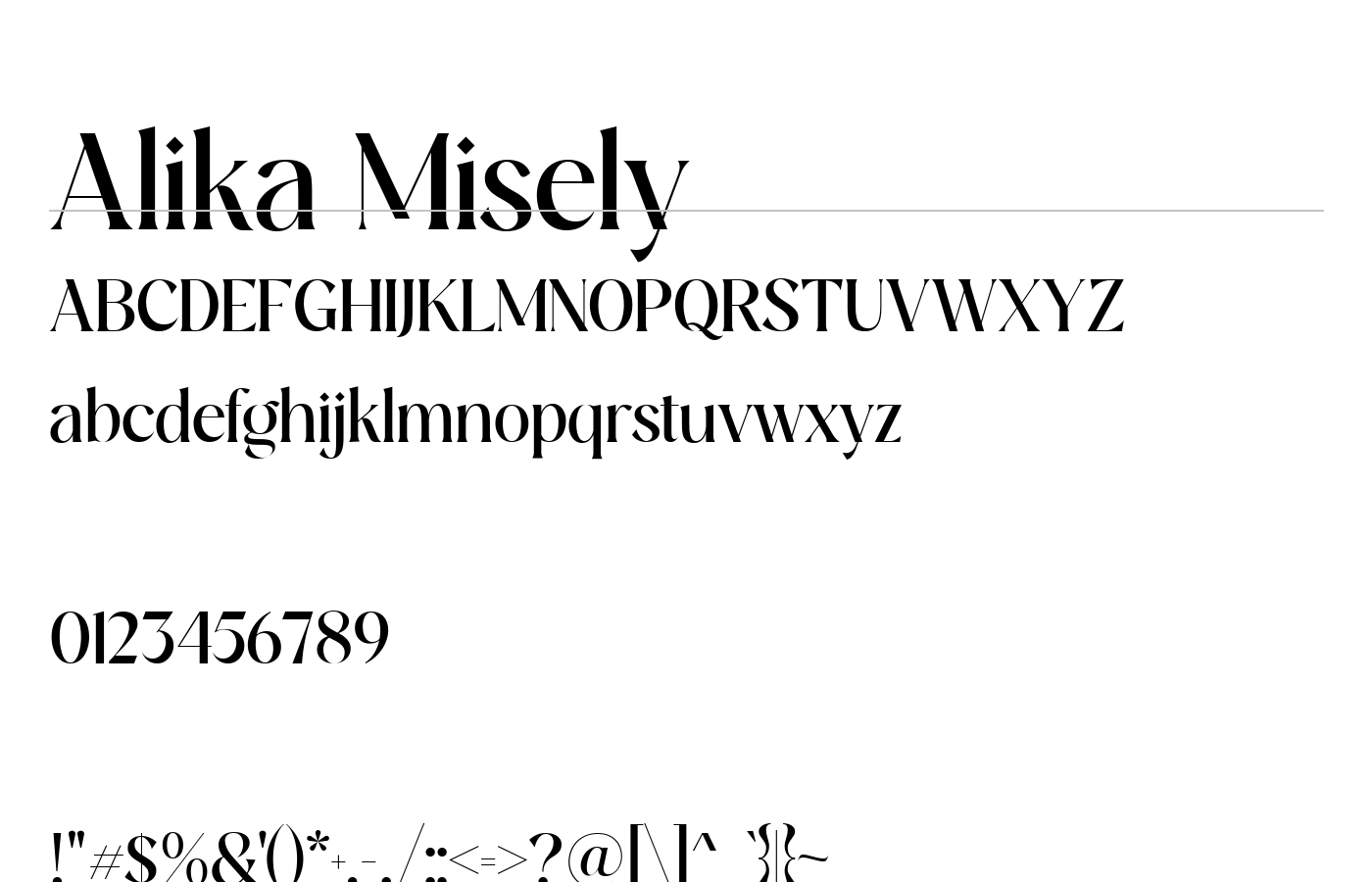
Alika Misely is a refined serif font characterized by its high contrast between thick and thin strokes and elegant, slightly condensed letterforms. Its sharp, modern serifs and distinctively stylized details give it a sophisticated and contemporary feel, making it an excellent choice for luxury branding, editorial headlines, and fashion-oriented designs. The font’s graceful structure balances readability with artistic flair, perfect for projects that aim to convey elegance and modernity.
Alika Misely Font